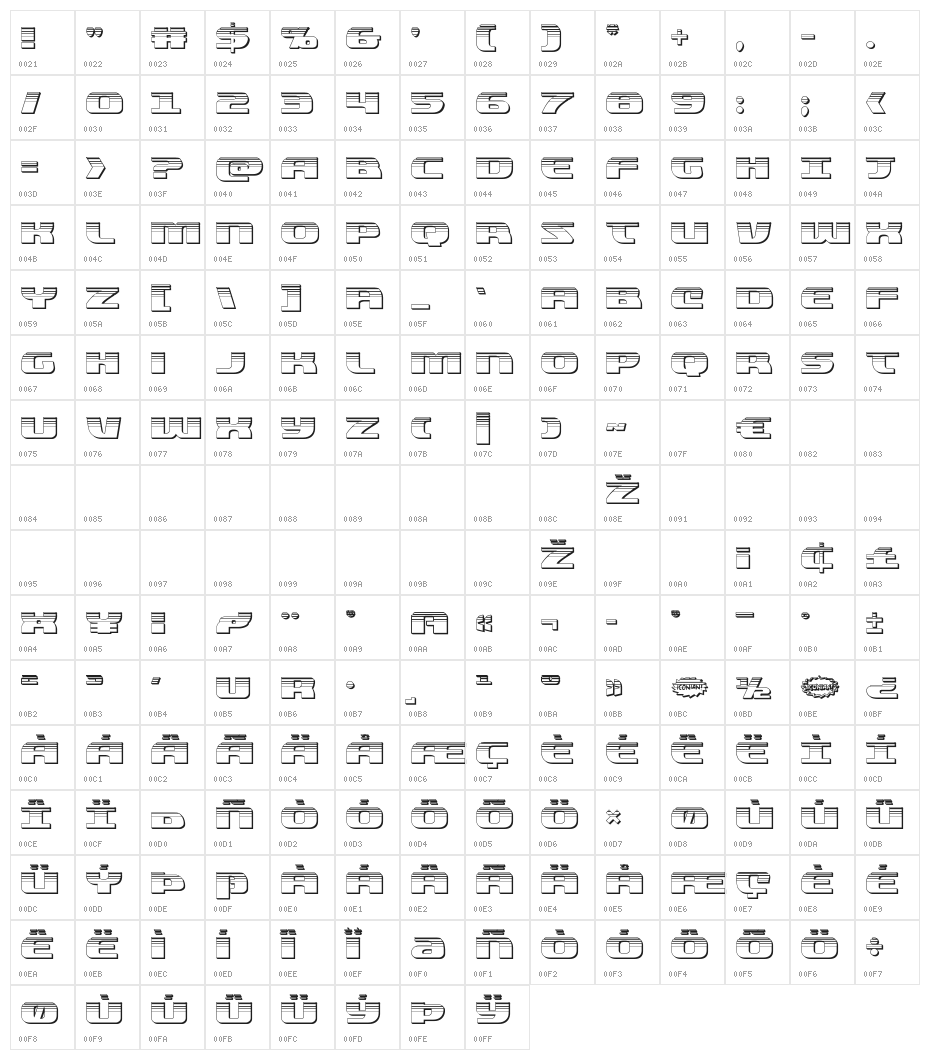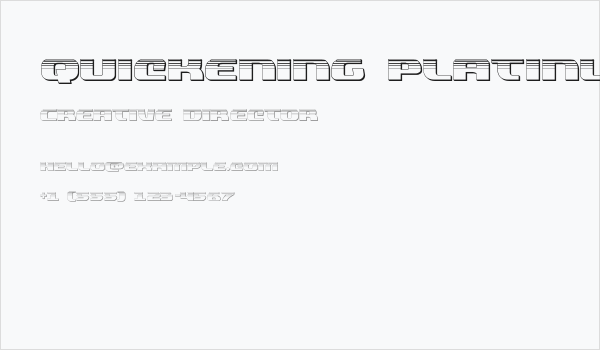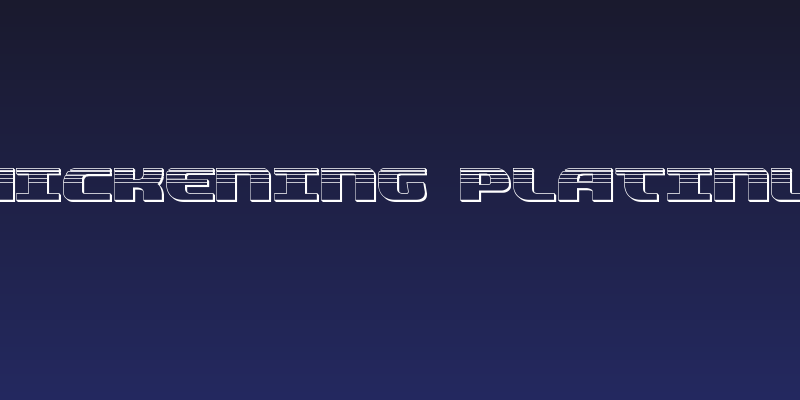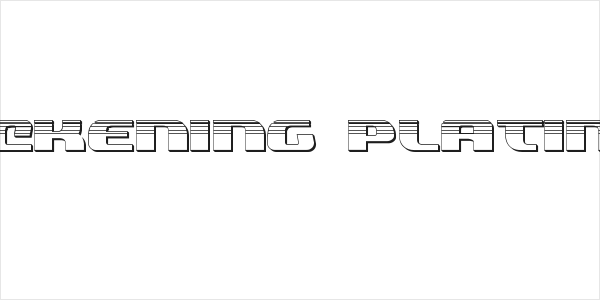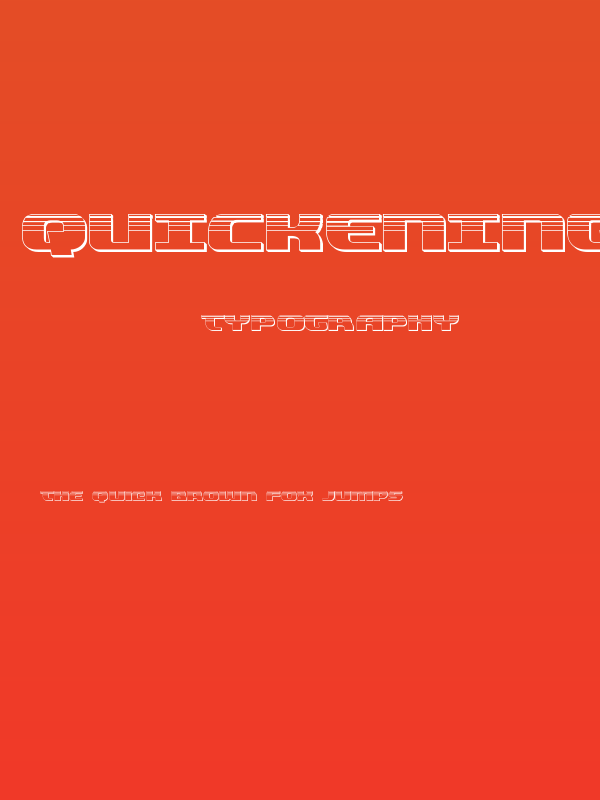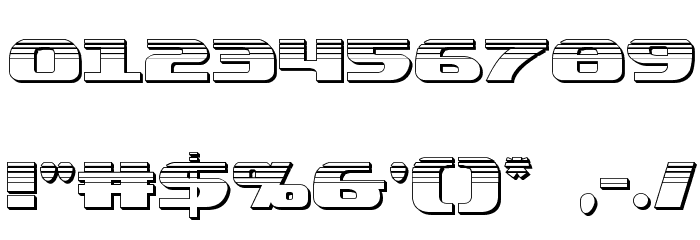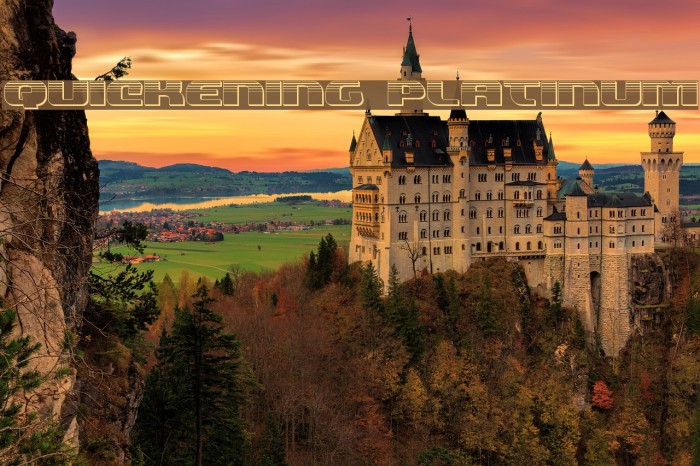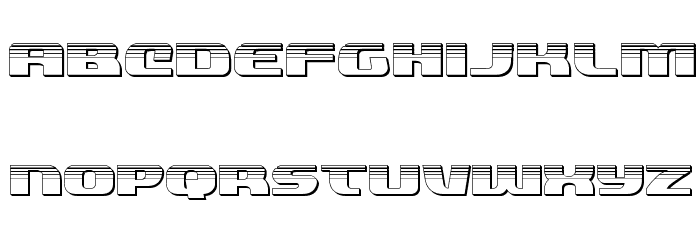
Quickening Platinum Font
Quickening Platinum Description
This font features a bold, futuristic design with a distinct three-dimensional effect created by parallel lines running through each character. The uppercase and lowercase letters maintain a consistent geometric structure, giving the typeface a cohesive and modern appearance. The numerals and special characters follow the same design principles, ensuring uniformity across all glyphs. The font's unique style makes it stand out, ideal for projects that require a strong visual impact.
| Proposed Projects | Ideal for sci-fi themed designs, video game titles, tech branding, and futuristic posters. |